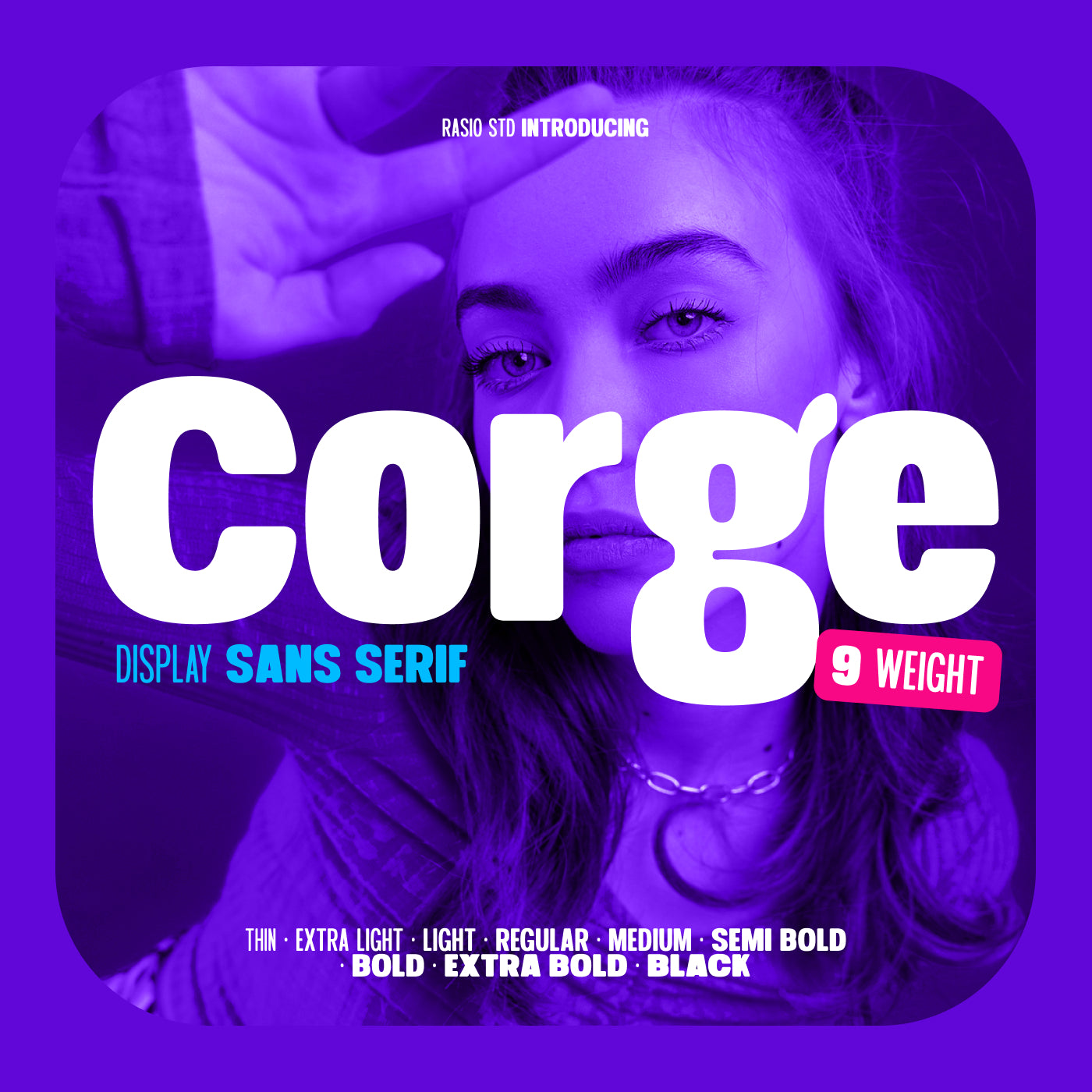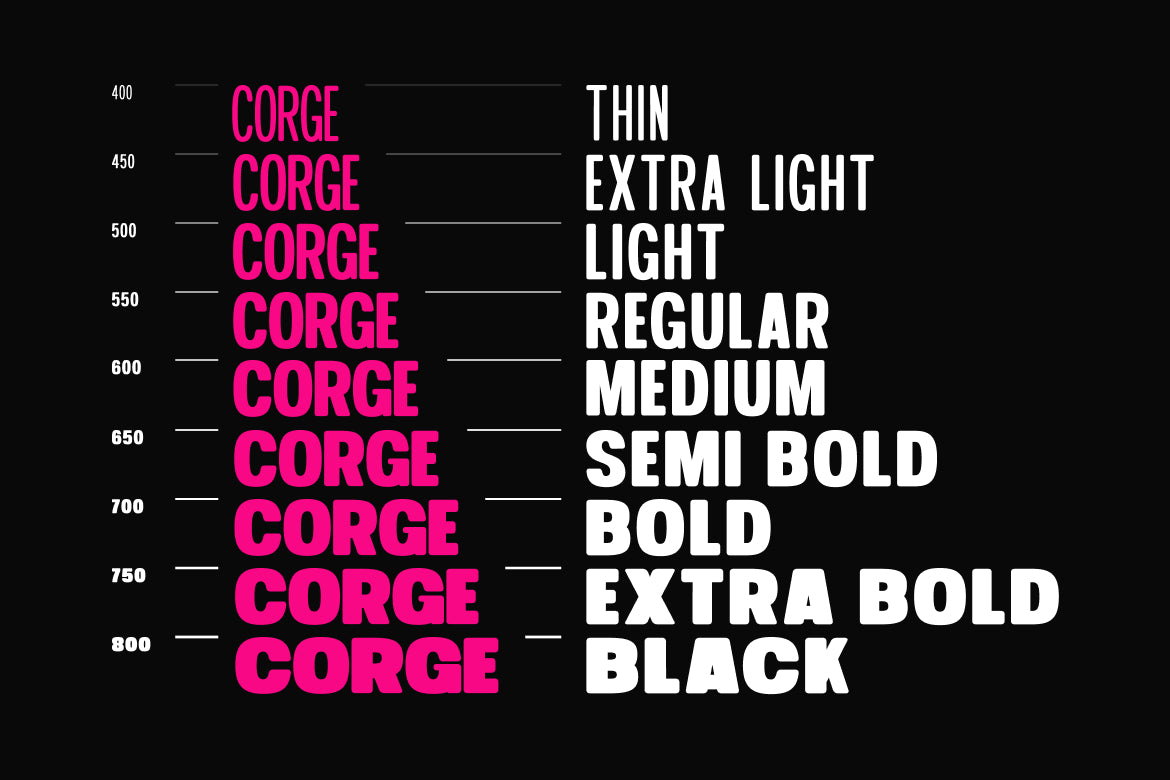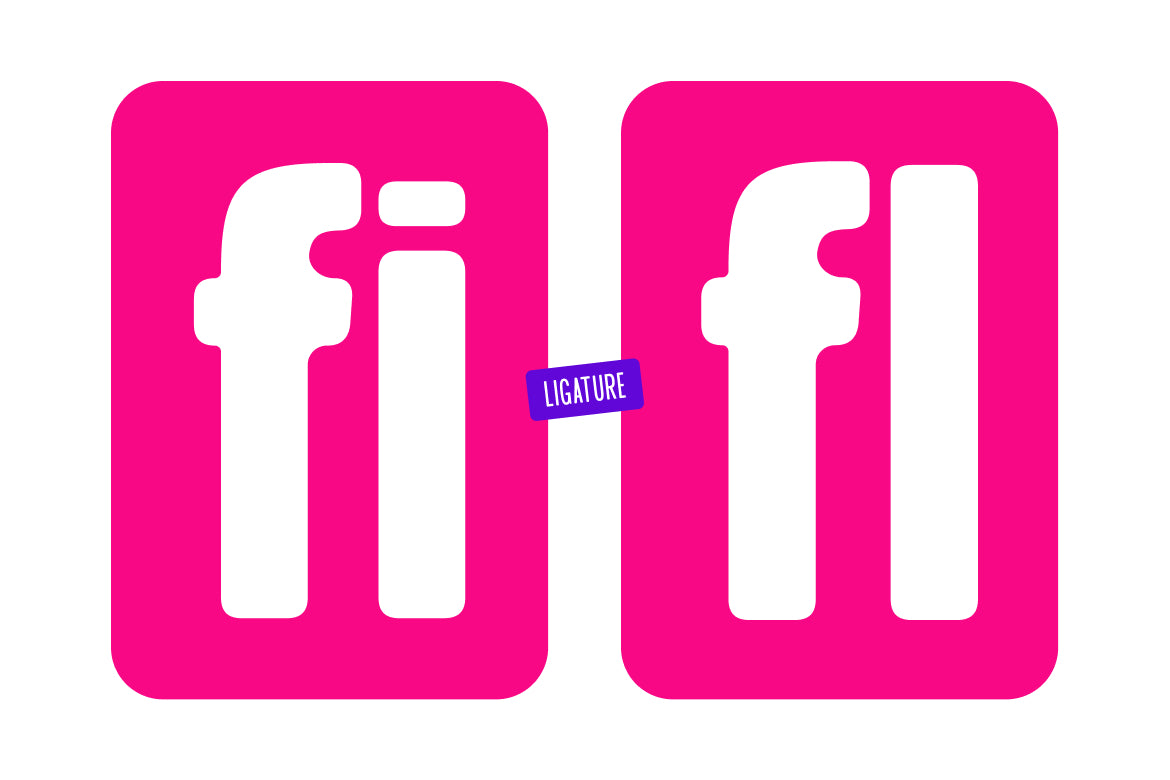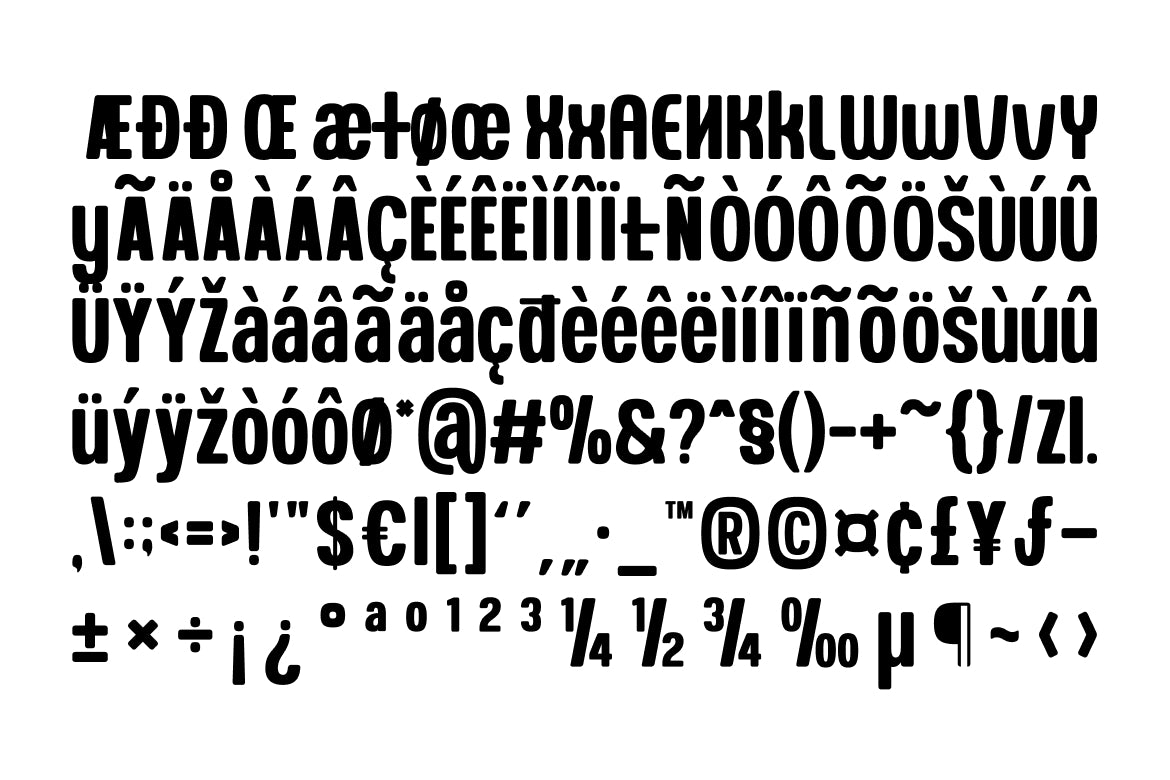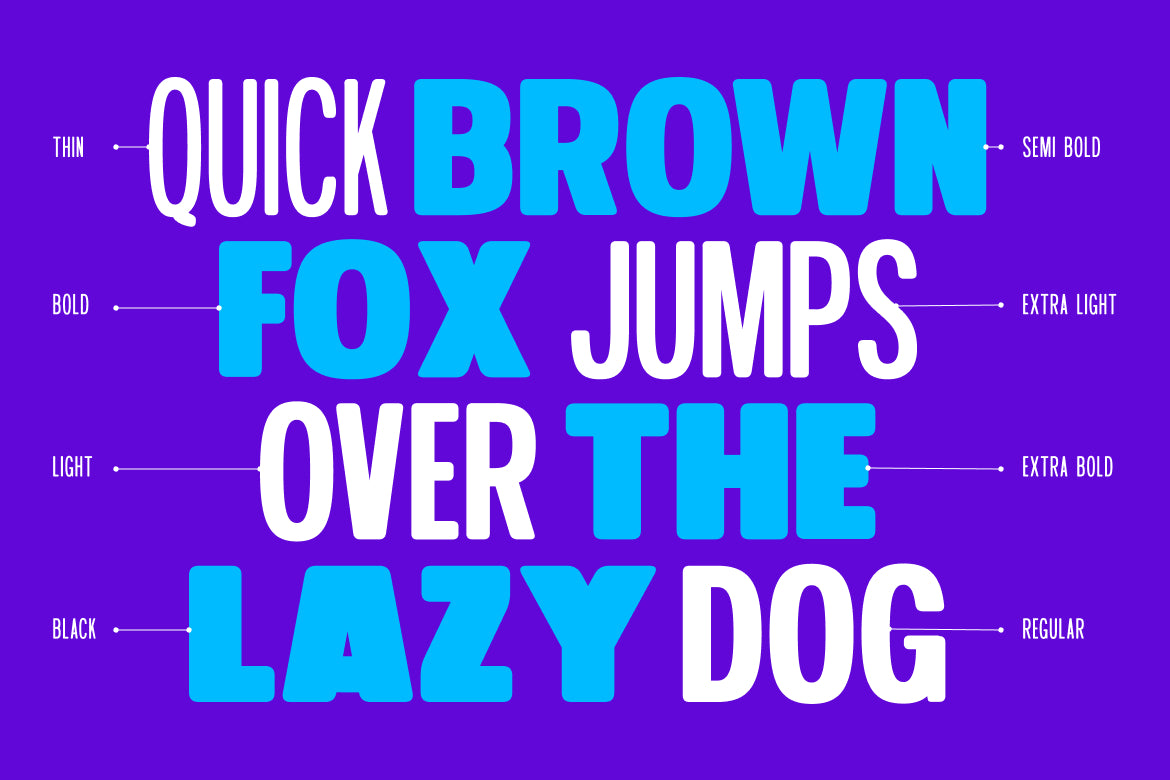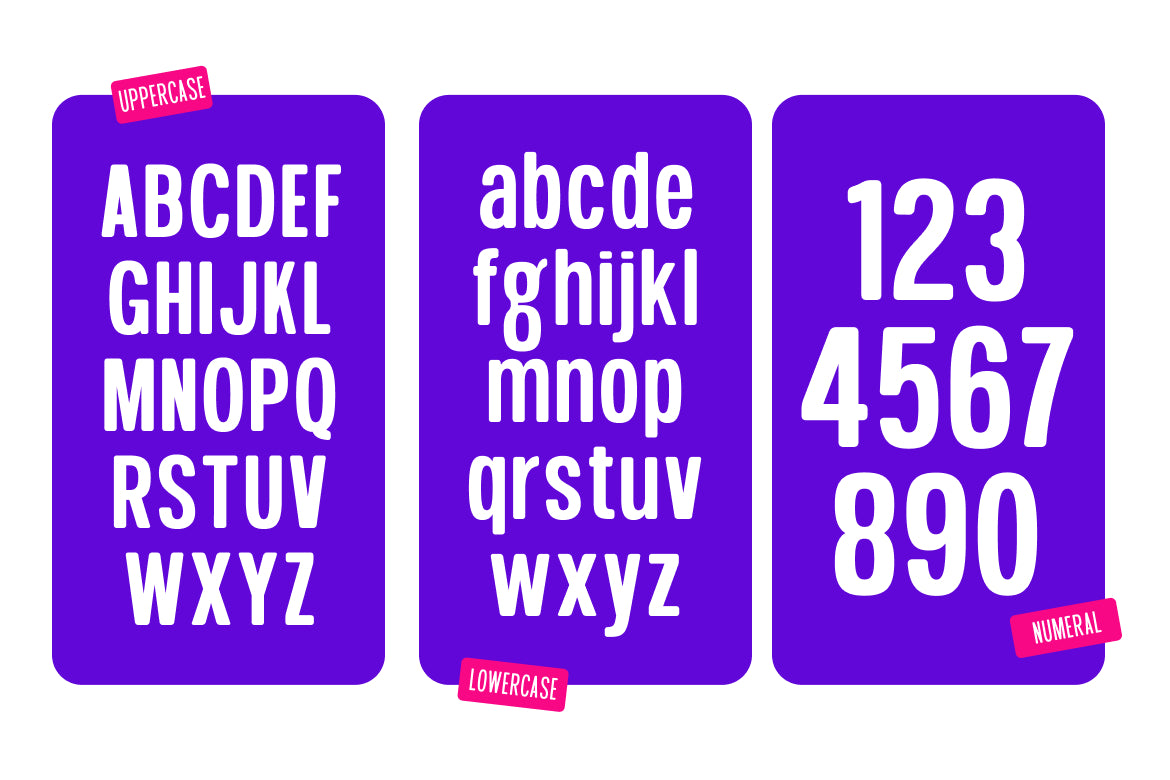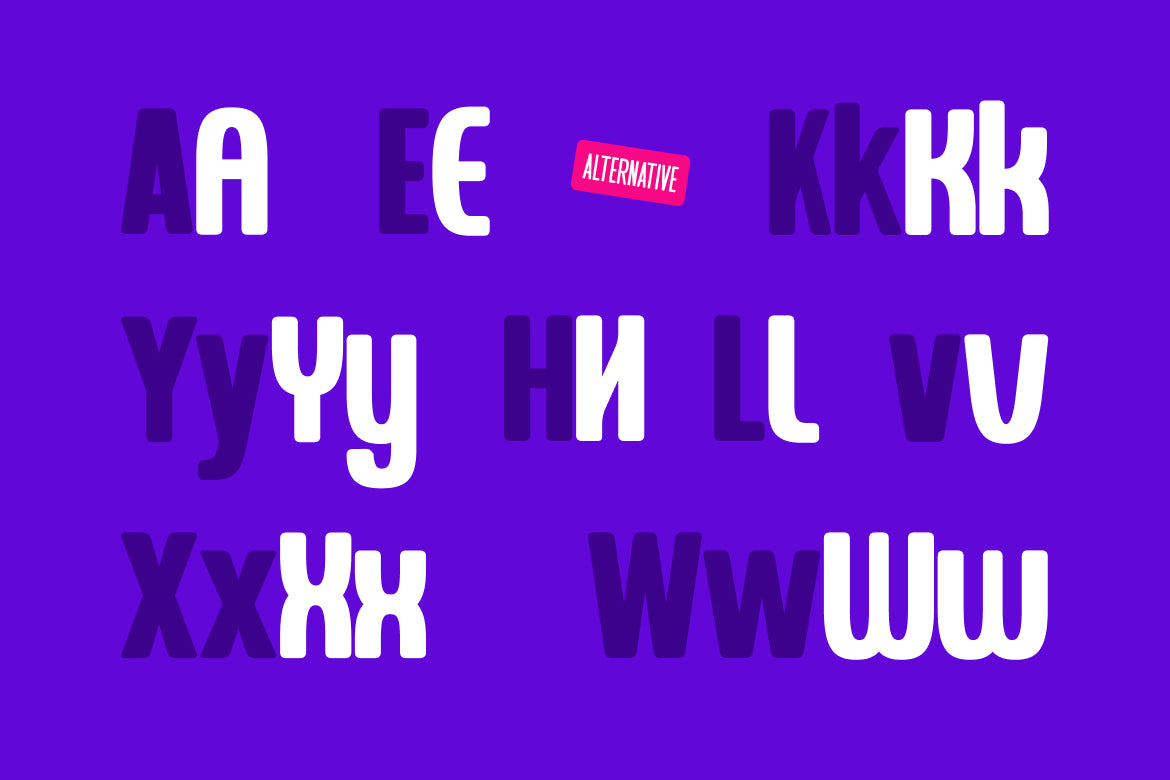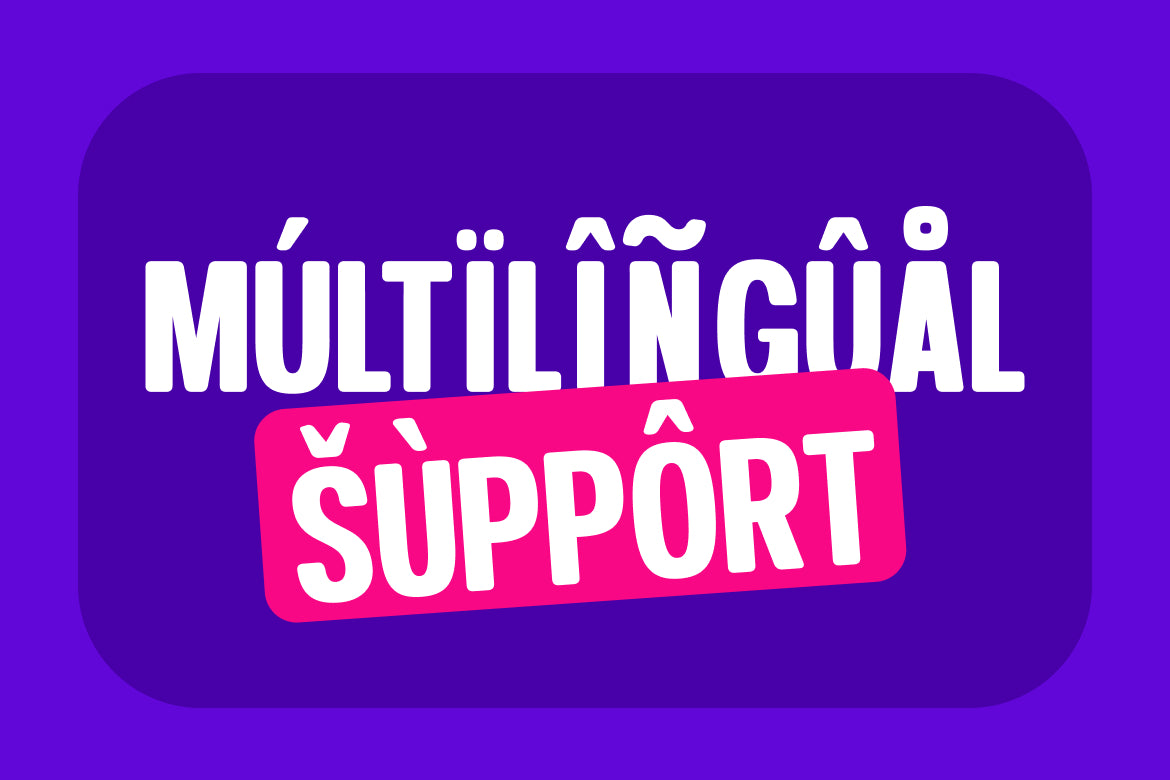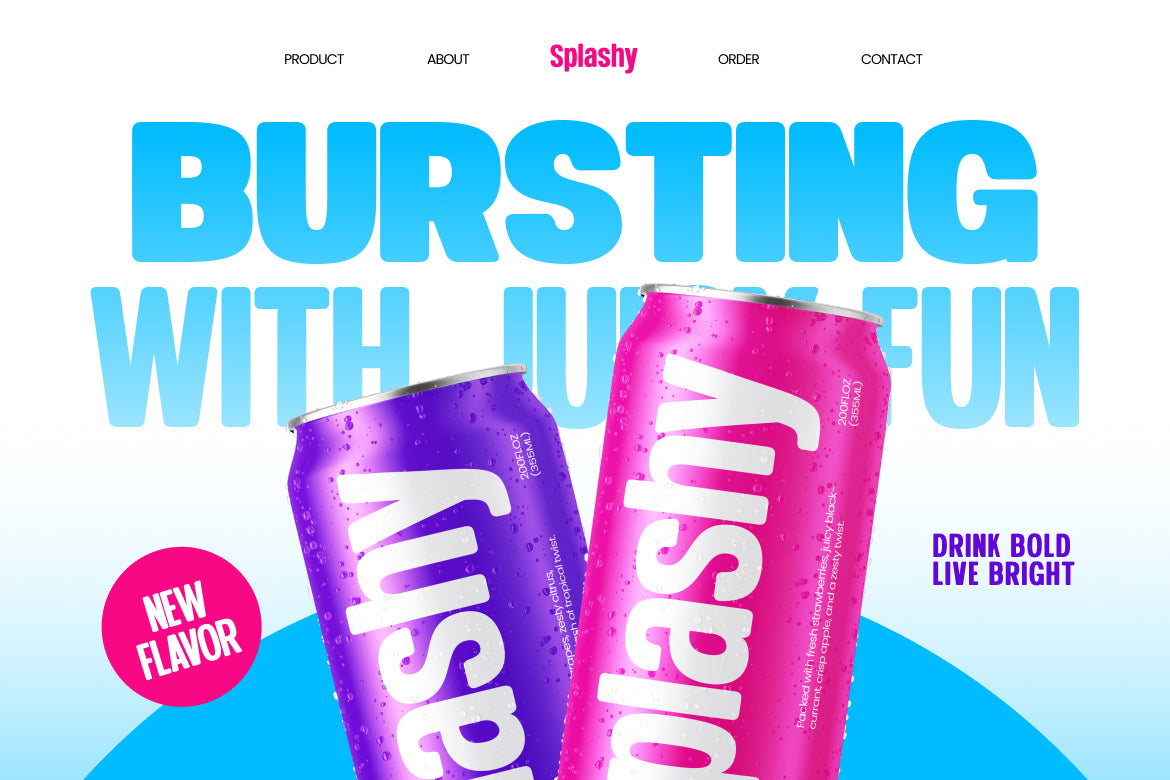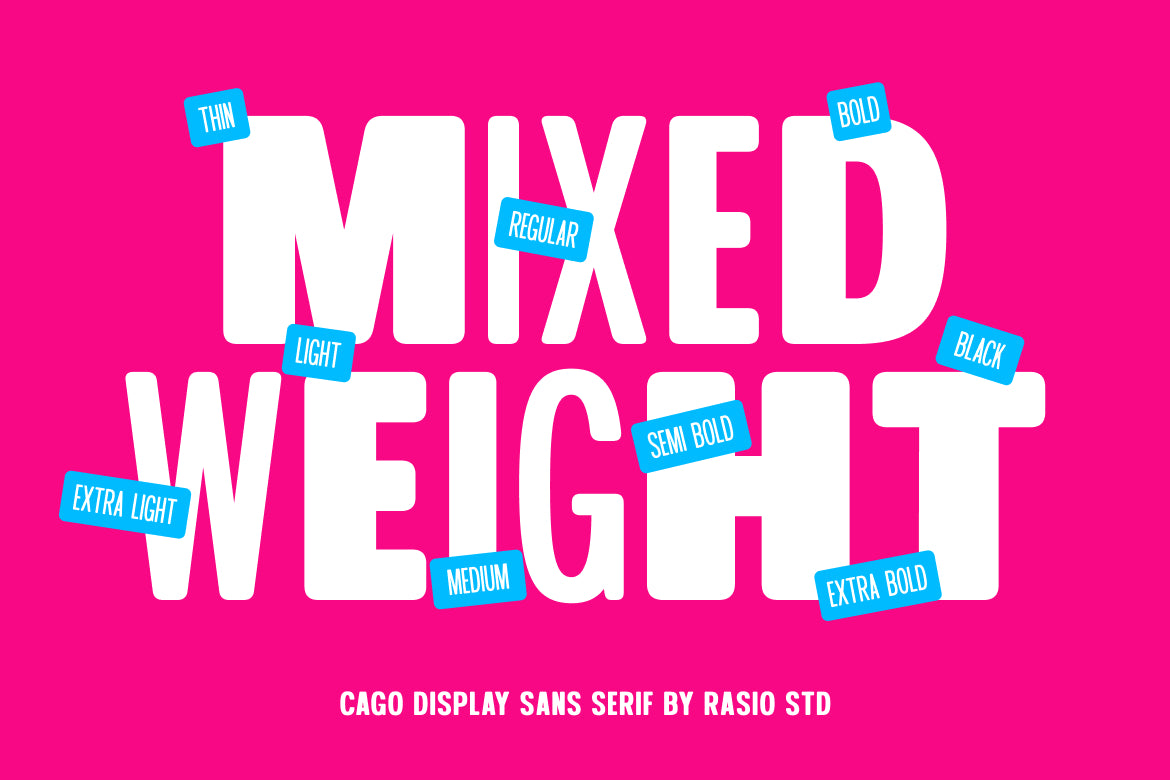
Corge Display Sans Serif Font
Corge Display Sans Serif is a display sans serif font with a bold, geometric, and highly eye-catching design. Its letterforms are rounded, solid, and visually consistent, making it perfect for modern, expressive typographic needs. With 9 versatile weights from Thin · Extra Light · Regular · Medium · Semi Bold · Bold · Extra Bold · Black. Designed for versatility and impact, this font includes uppercase and lowercase characters, numerals, multilingual support, and stylish ligatures. Corge Display Sans Serif its strong geometric shapes and smooth curves, Cago is perfect for branding, logo design, poster headlines, packaging, and editorial use. Whether you're working on a corporate identity or a playful campaign, this display typeface delivers clarity and personality across all formats.
9 Weights (Thin → Extra Bold)
Ligatures & Alternates for creative flexibility
Multilingual Support (Latin Pro)
Perfect for Logos, Headings, Corporate Branding, UI/UX, Tech & Futuristic Design
Corge Display Sans Serif is a geometric display font available in 9 weights, from Thin to Black. It includes uppercase and lowercase characters, numerals, ligatures, alternates, and multilingual support in TTF, OTF, and WOFF formats.